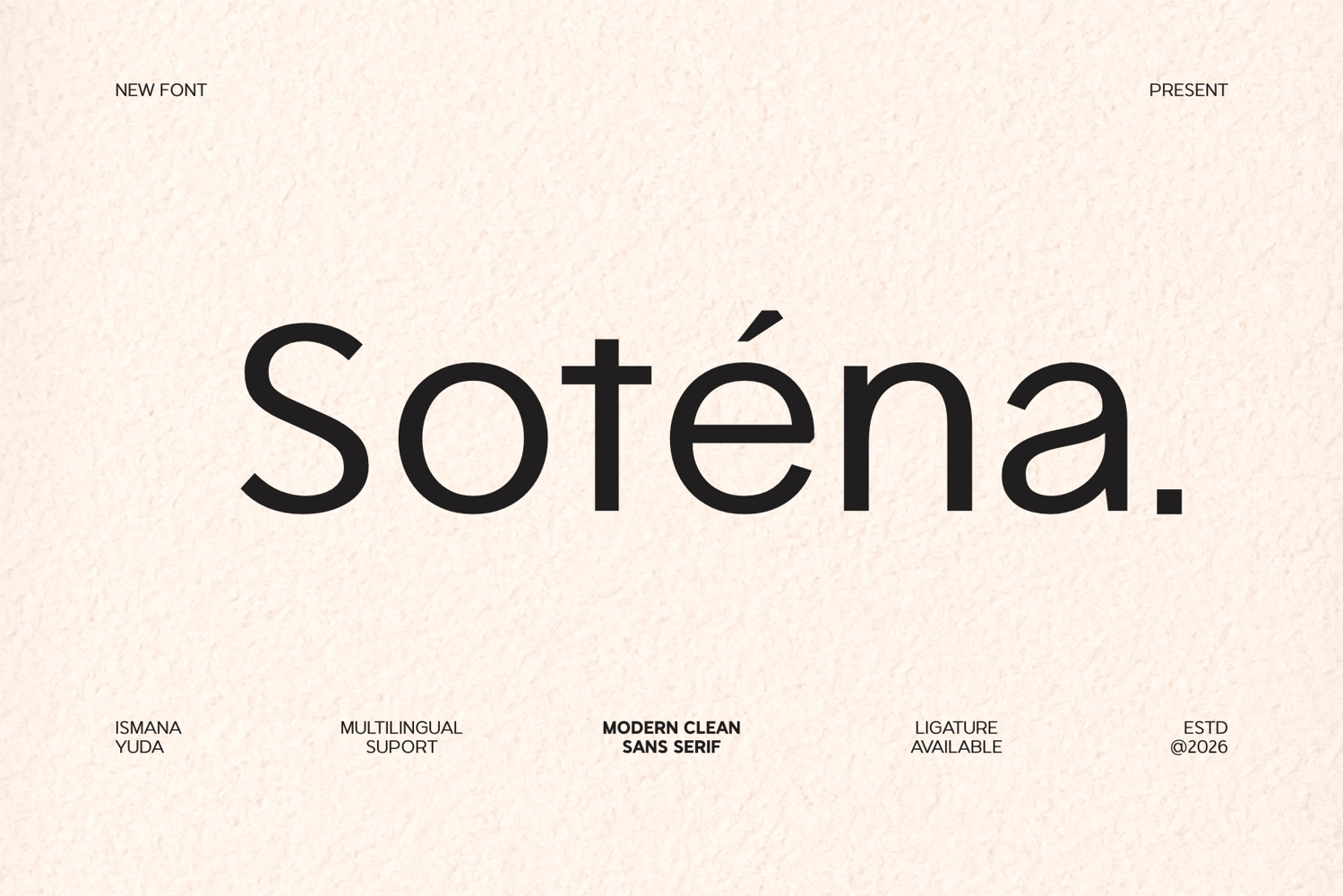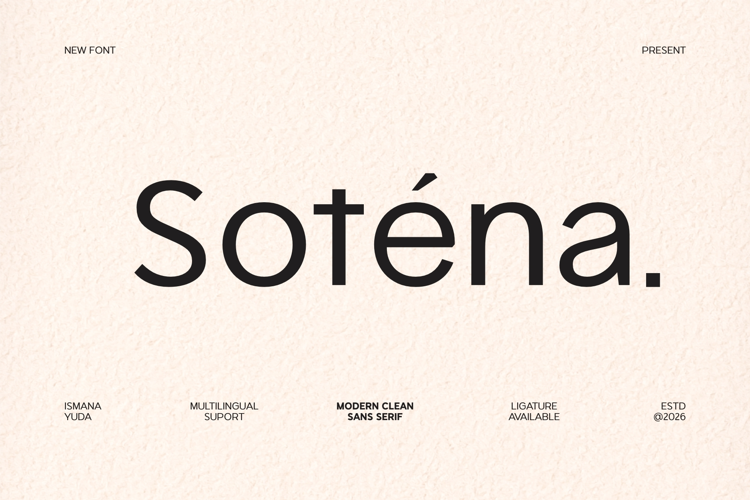
Sotena
Soténa, a modern and versatile typeface designed by Ismana Yuda. It is characterized as a Modern Clean Sans Serif, noted for its minimalist lines and high readability. The font is built with several contemporary features, including multilingual support for various accents and ligatures to enhance typographic harmony.
• Numeral
• Multilingual